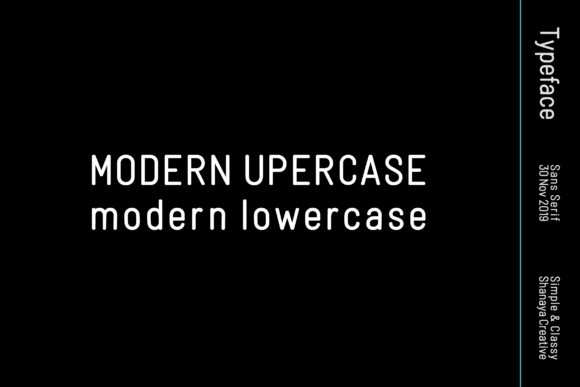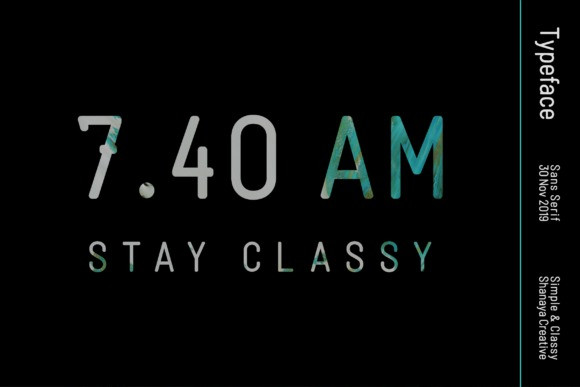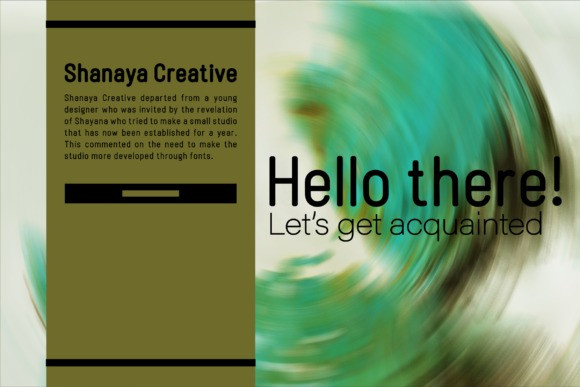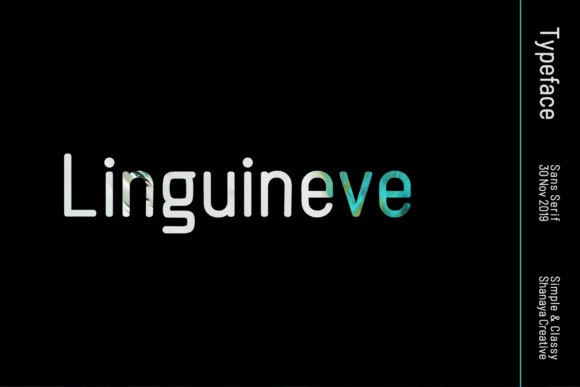
Linguineve Sans Font
This is a sans serif font with several different styles. This font is designed with geometric principles, this font is great for your creative projects. Linguineve Font is design and shared by Shanaya Creative. Linguineve Sans Serif was inspired by the performing arts. Its advantage lies in its legibility, which allows it to be used across a wide range of design occasions. Its versatile design options is perfect for headlines, logos and branding, displays, invitations, posters, packaging, blog headers, recipe cards, postcards and so much more